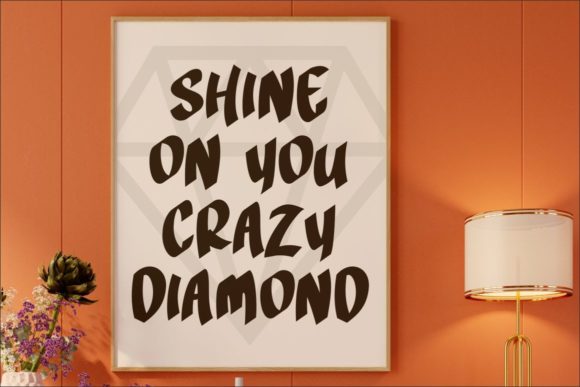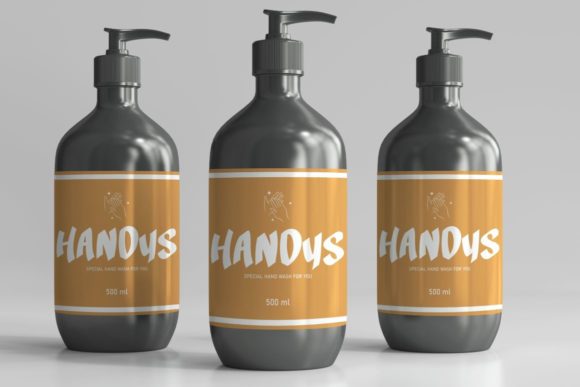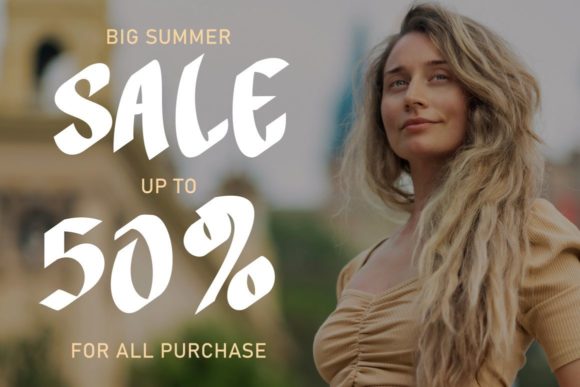
Introduction to Classic Writer Font
Classic Writer is a cool and trendy looking display font.
Whatever the topic, this font will be a wonderful asset to your font library, as it has the potential to enhance any creation .
Classic Writer Font offers exceptional quality and versatility, making it a valuable addition to your design toolkit. Whether you’re creating for personal projects or commercial use, Classic Writer Font delivers professional results.